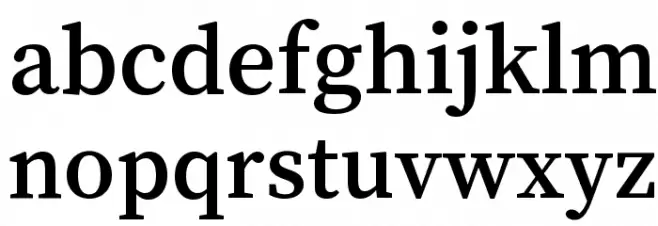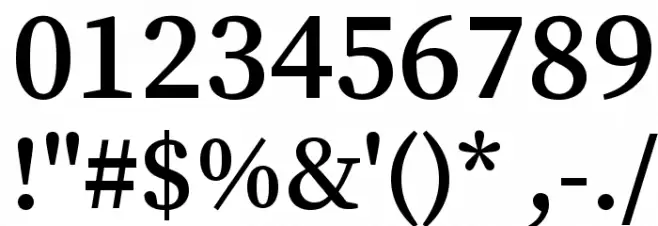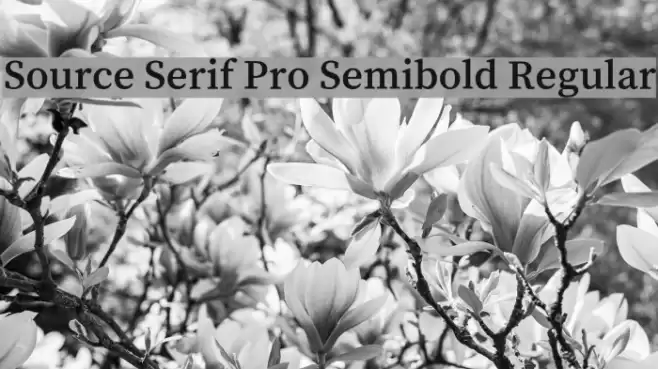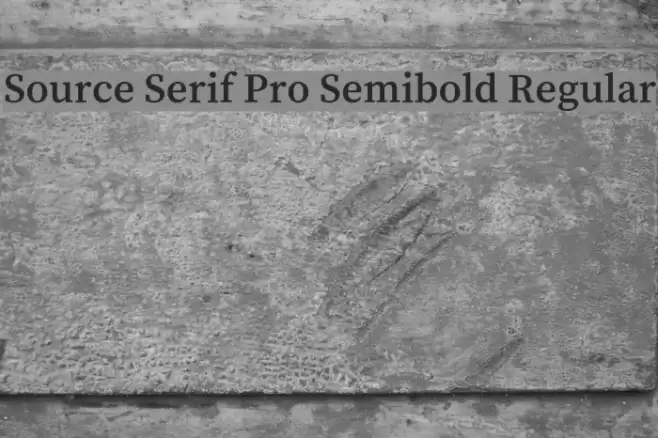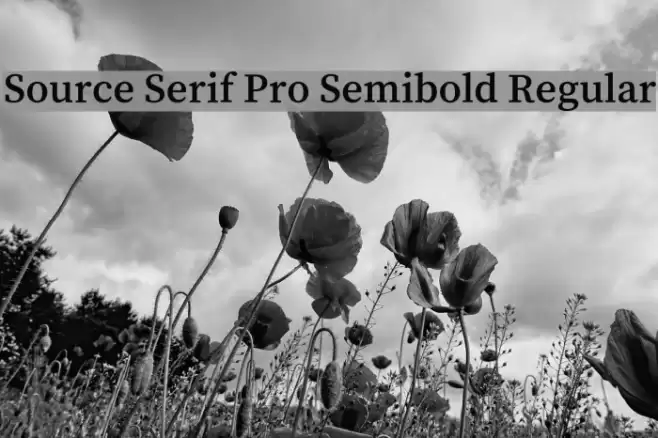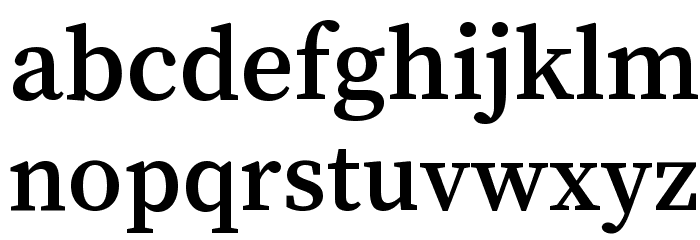
Source Serif Pro Semibold Regular
This typeface presents a classic serif style with a modern touch, characterized by its semi-bold weight. The strokes are well-defined, offering a medium contrast that enhances readability while maintaining an elegant appearance. The uppercase letters are stately and balanced, while the lowercase letters provide a smooth and consistent flow. Numerals are clear and distinct, making them suitable for both text and display purposes. The special characters are crafted with precision, ensuring versatility across various applications. Overall, this font exudes a timeless quality, making it suitable for a wide range of design projects.
A classic serif typeface with a modern touch and semi-bold weight.
- Proposed Projects: Ideal for editorial design, book covers, formal invitations, and branding materials.
- Category: Serif
- Overall Style: Classic